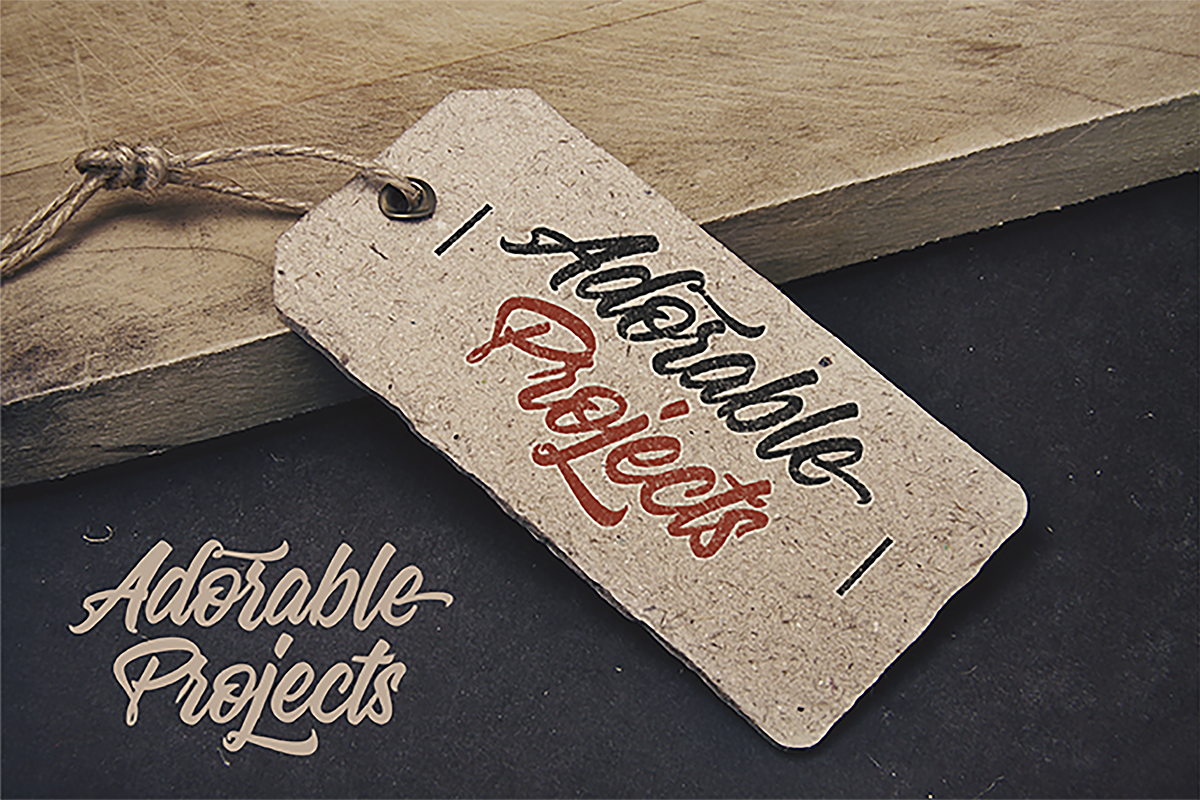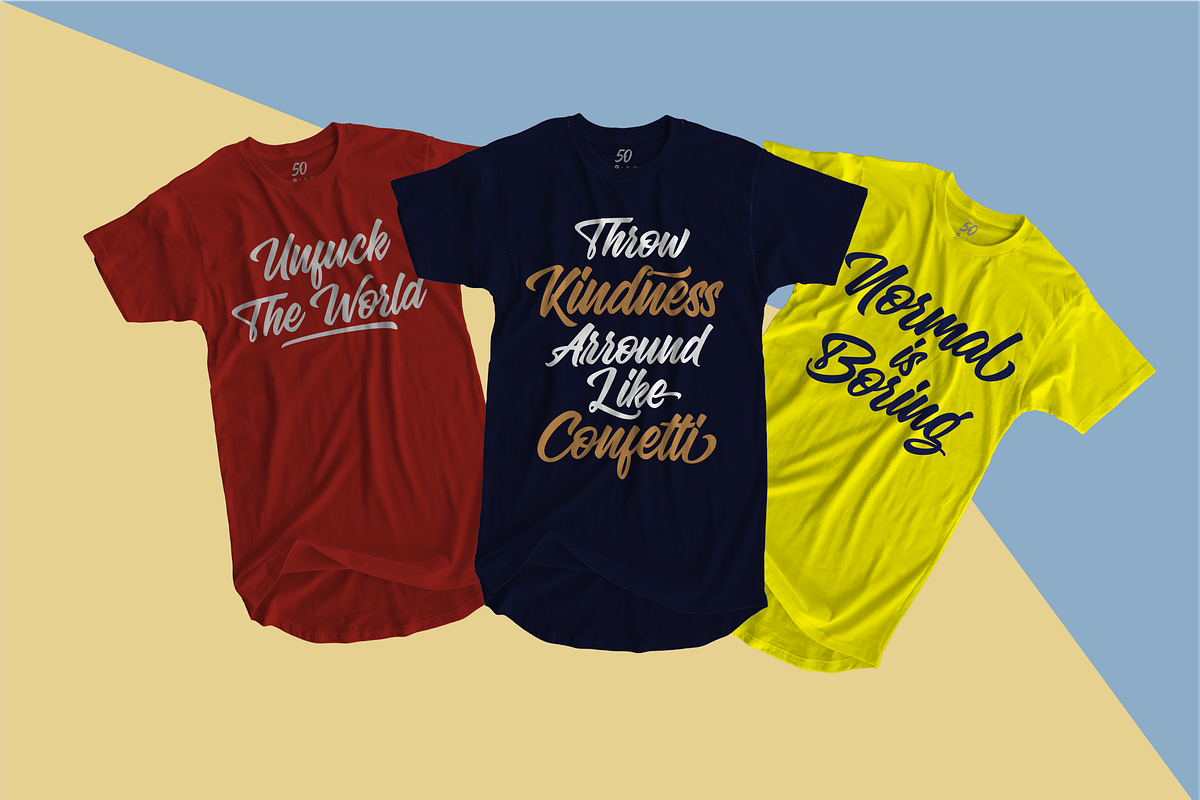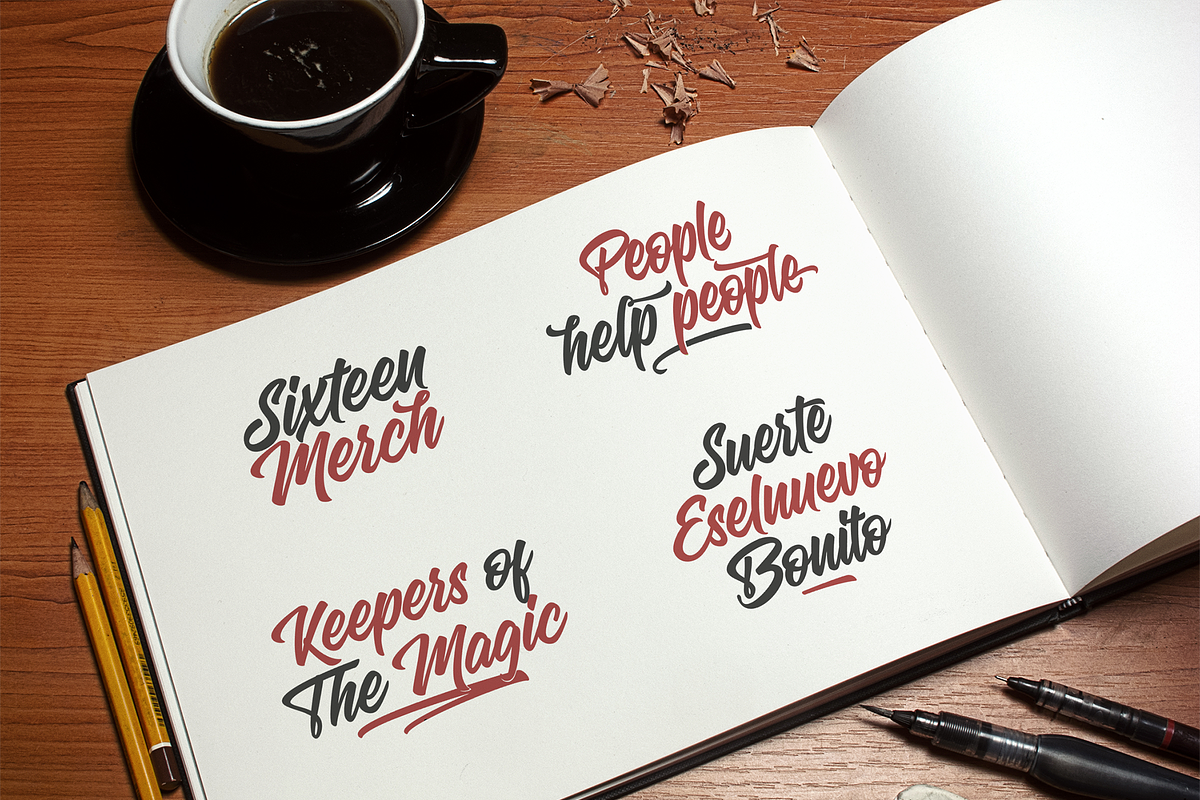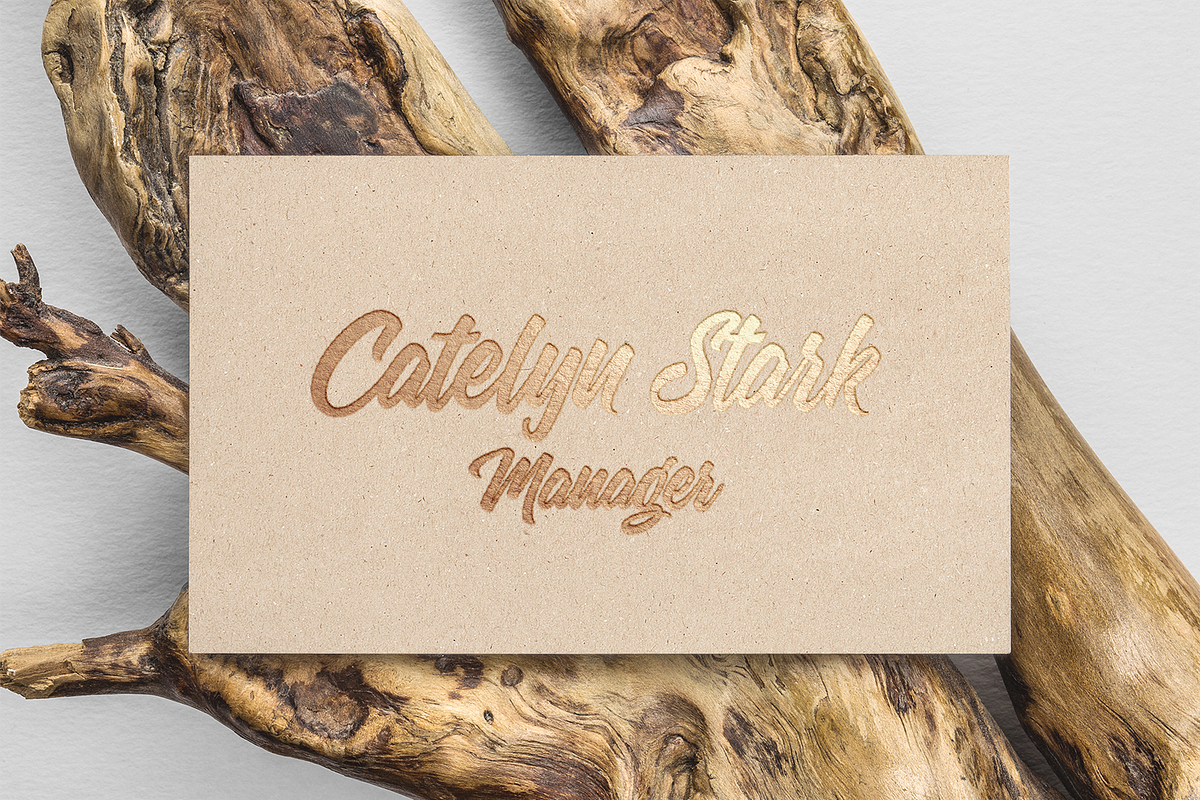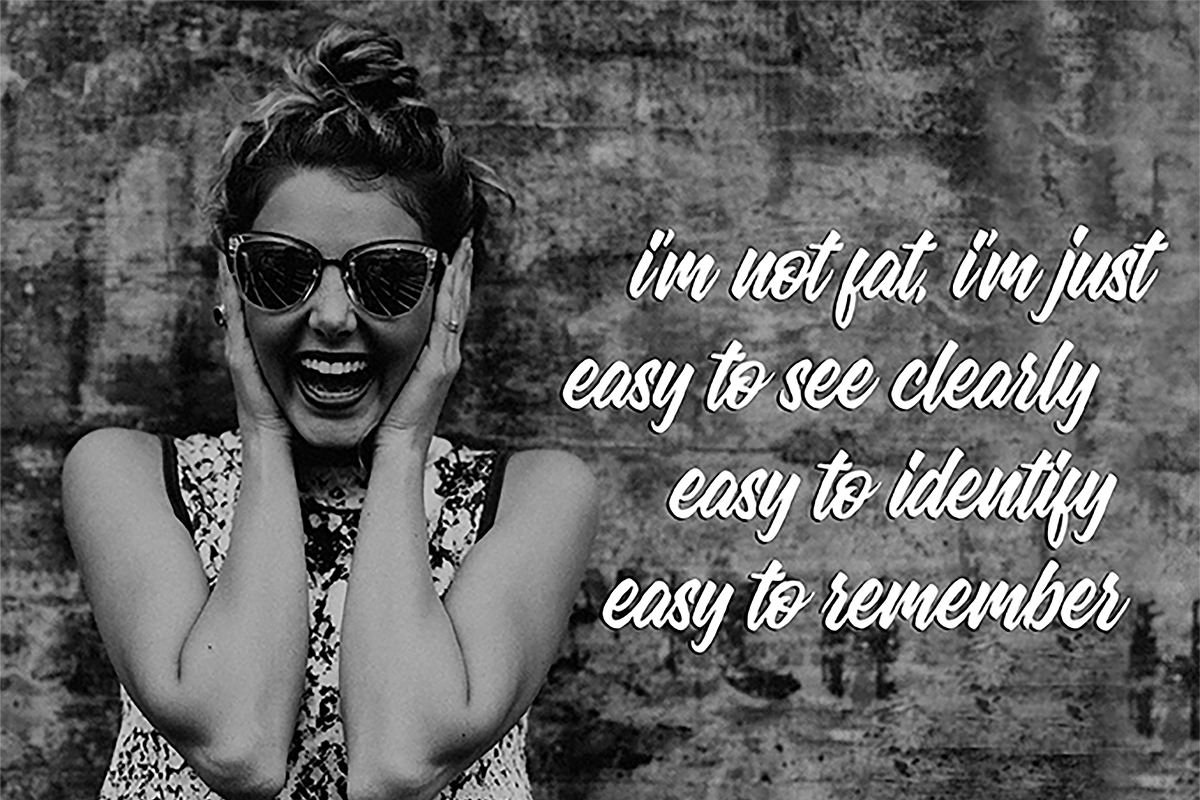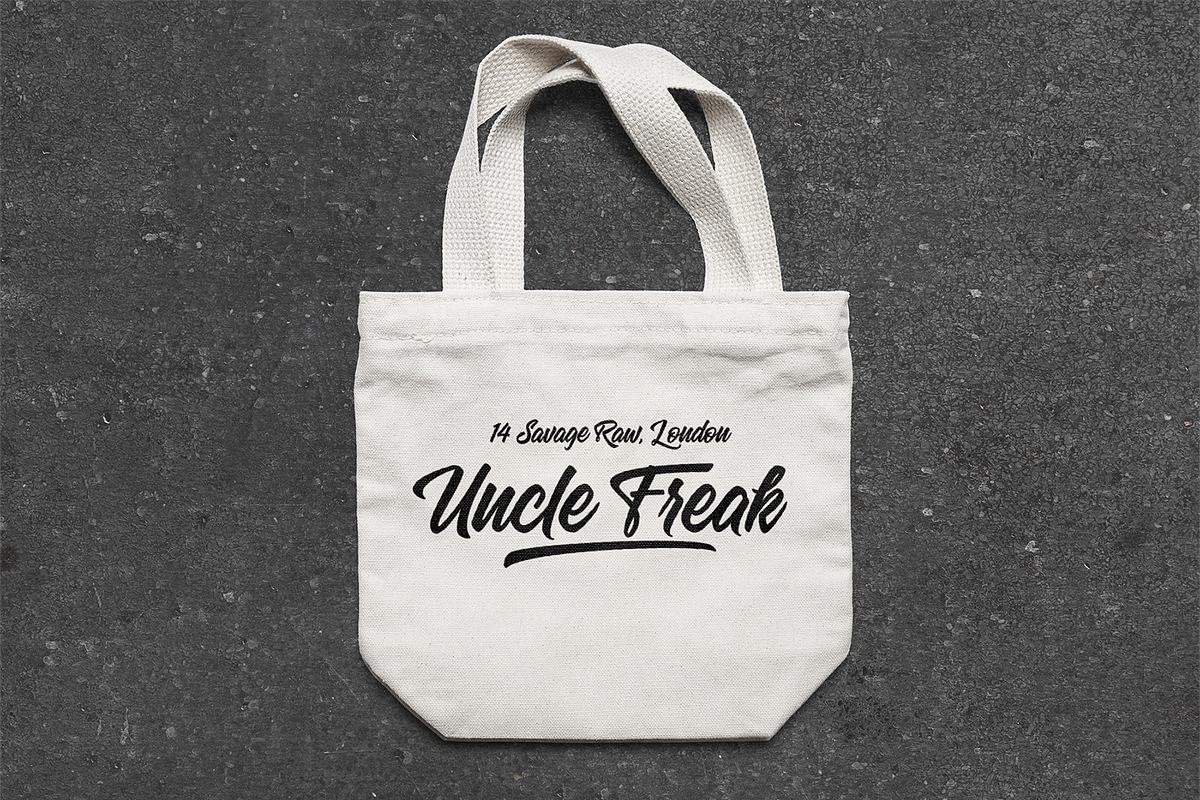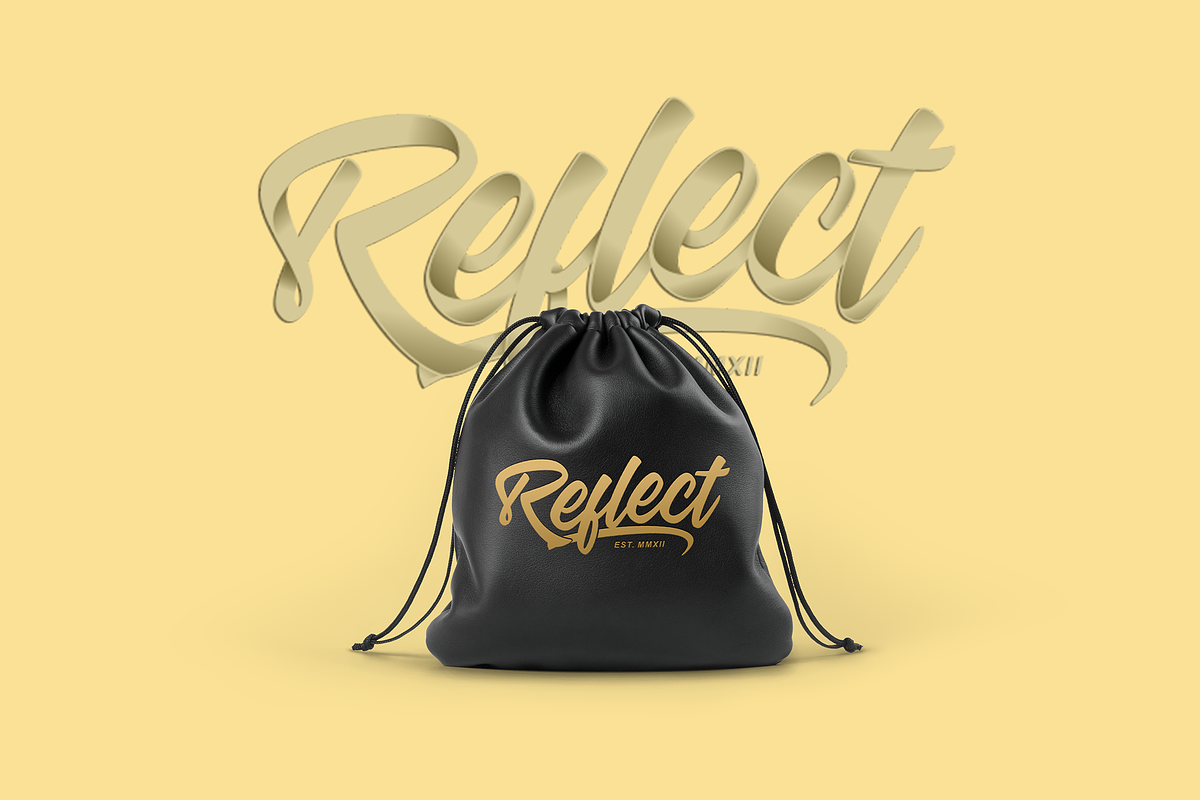
Manchester Script Font
Manchester Script is a handlettering font that comes with charming identity. This font also has great movement with clean look. You can use it for all your needs, such as a logo, printed quotes, badge, insignia, packaging, headline, poster, t-shirt/apparel, greeting card, and wedding invitation, & etc.
Manchester Script are available with many variations and swash bonuses. Consist of Uppercase, Lowercase, Numerals, Punctuation & Multingual Characters, also includes some OpenType Features like ligatures, Stylistic Alternate Characters, & Swashes.